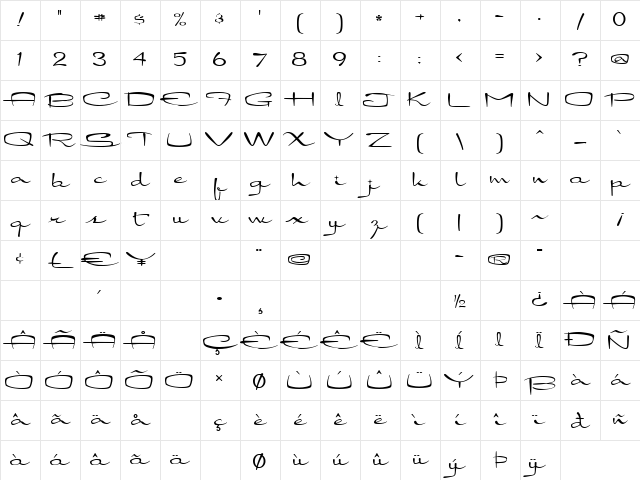
Kitchenette Regular Free Font
Kitchenette Regular
Complete Kitchenette Regular glyph index. Displaying only characters natively supported by Kitchenette Regular font.
Design Context for Kitchenette
Kitchenette is a composed and adaptable typeface that performs quietly and consistently across a wide range of design contexts.
Pro Tip: Use Kitchenette in both headline and body roles to test its range before committing to a single application.